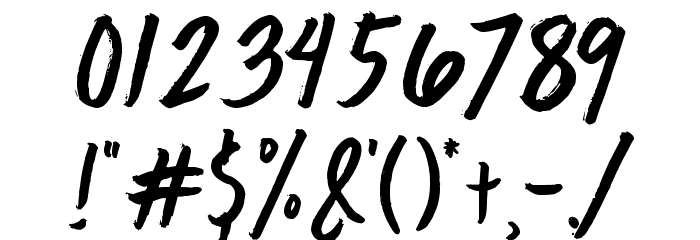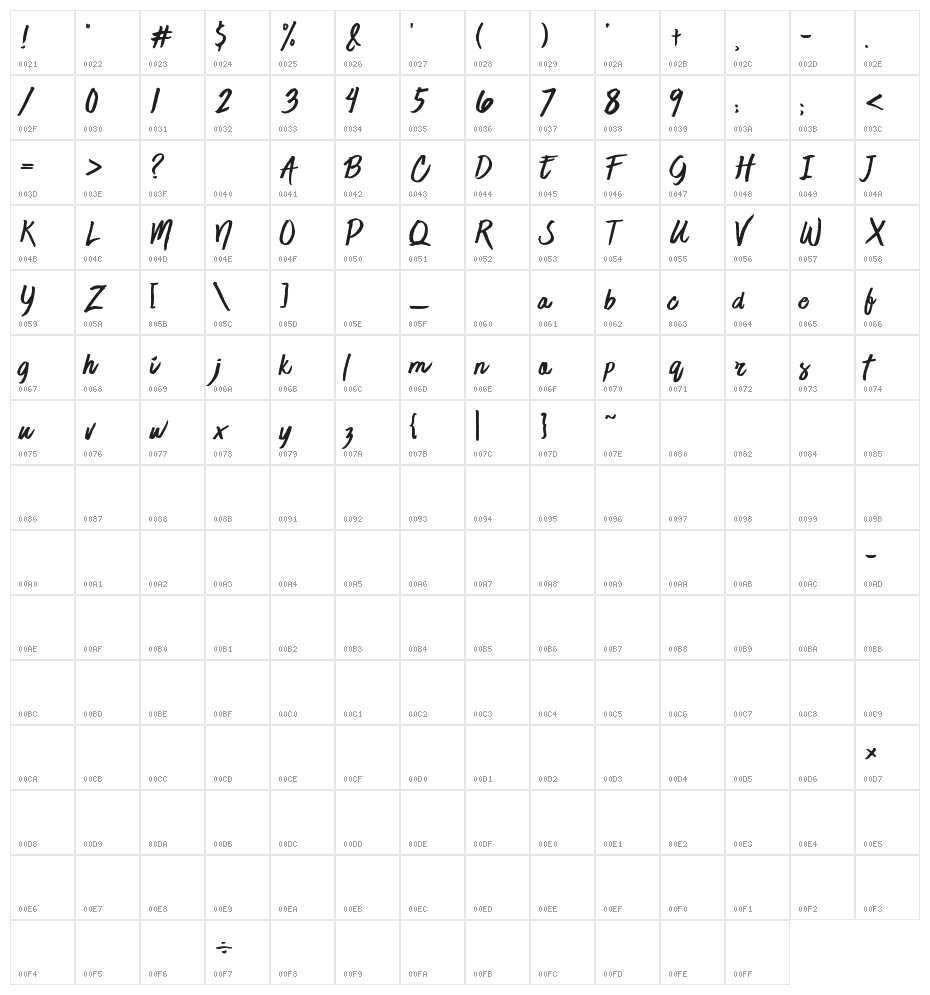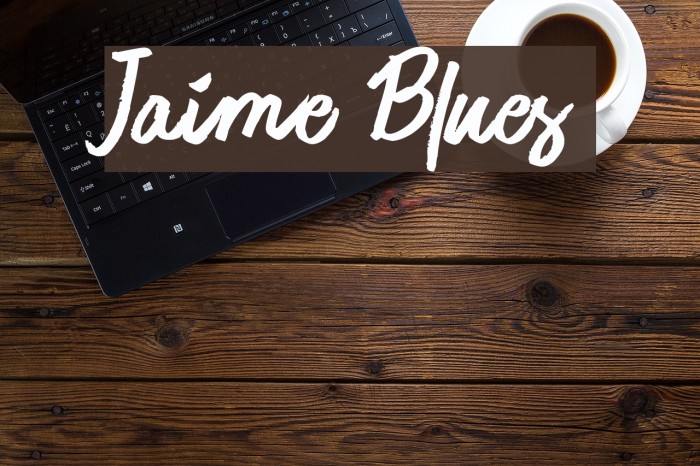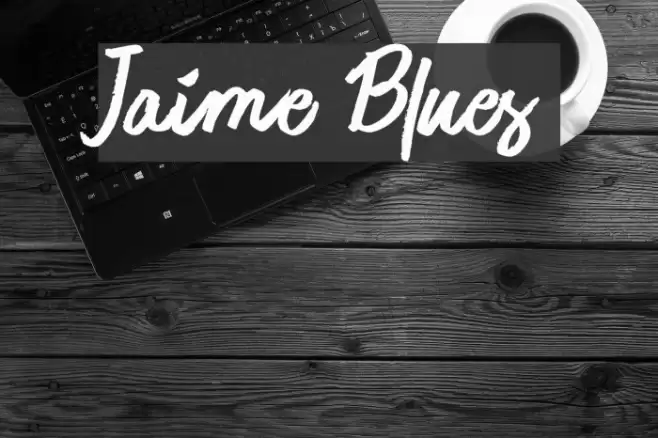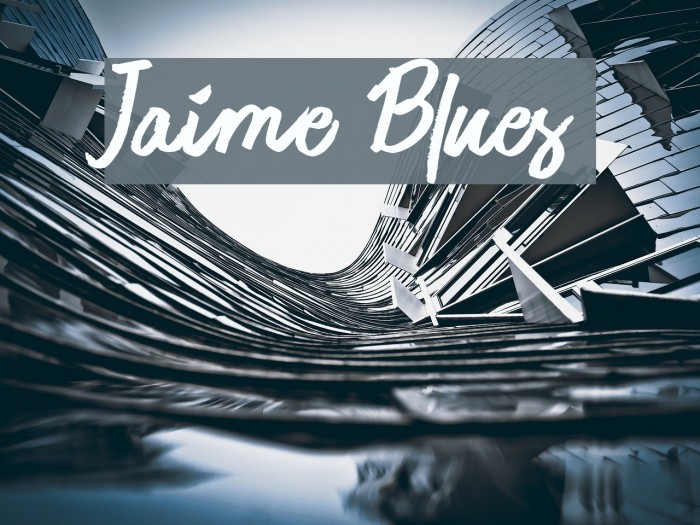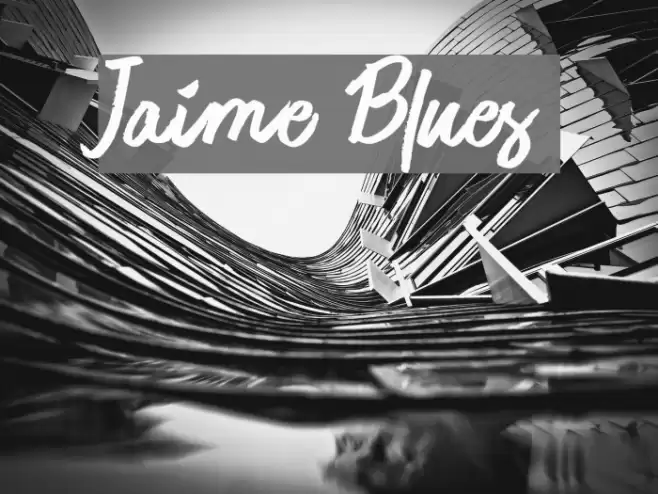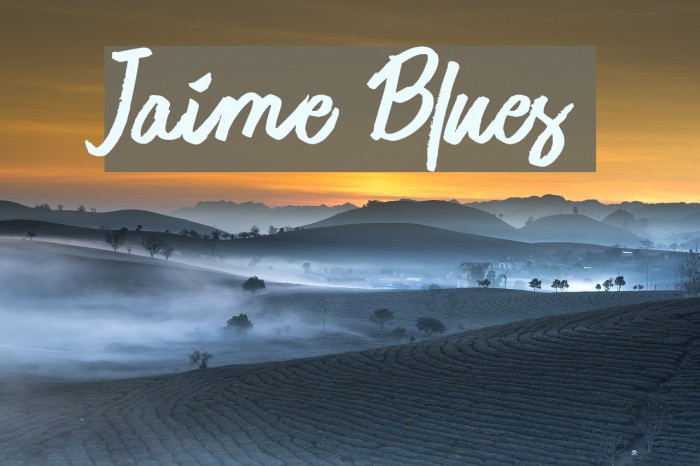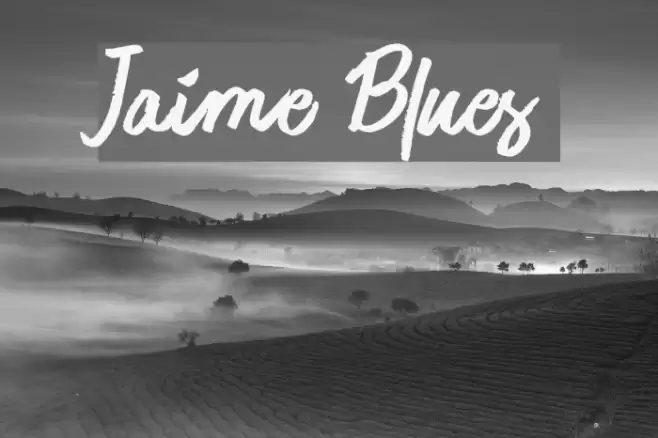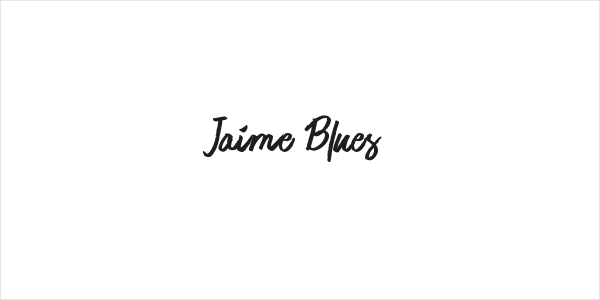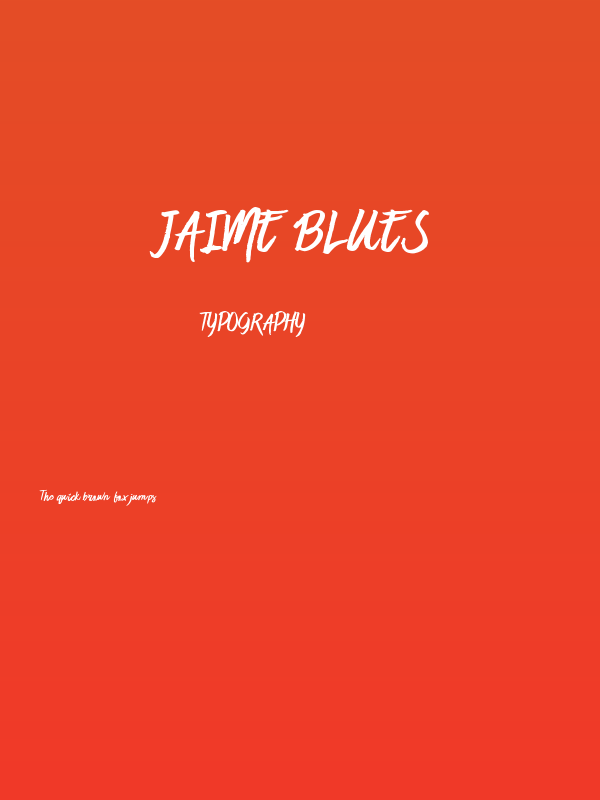
Jaime Blues Font
Jaime Blues Description
This font exudes a dynamic and expressive style, characterized by its handwritten appearance. The strokes are bold and fluid, giving it a lively and energetic feel. The letters are slightly slanted, adding to the casual and informal aesthetic. The uppercase and lowercase letters maintain a consistent style, with the uppercase being more pronounced and the lowercase offering a more relaxed flow. The numerals and special characters complement the overall design, ensuring versatility in various applications. The font's brush-like texture adds a personal touch, making it suitable for creative and artistic projects.
| Proposed Projects | Ideal for branding, posters, invitations, and artistic projects that require a personal touch. |